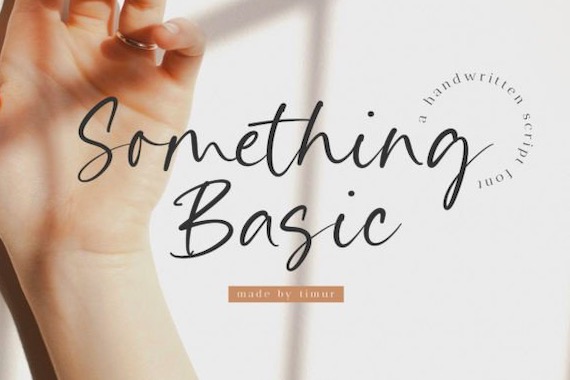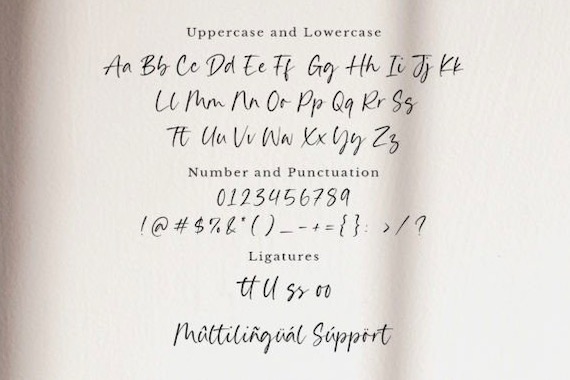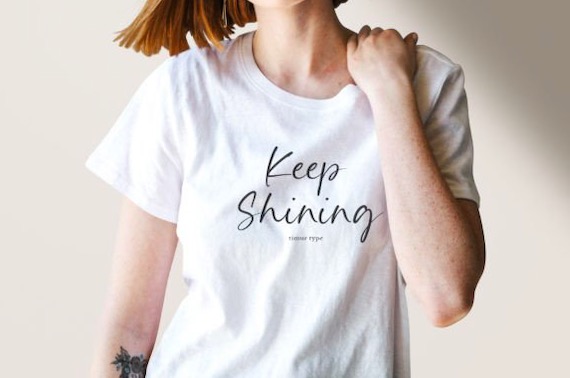
Something Basic is a flowing and delicate handwritten font that was created and shared by Timur type. It has beautiful and well-balanced characters and as a result, it matches a wide pool of designs.
Something Basic Handwritten Font
Designer, Publisher: Timur type